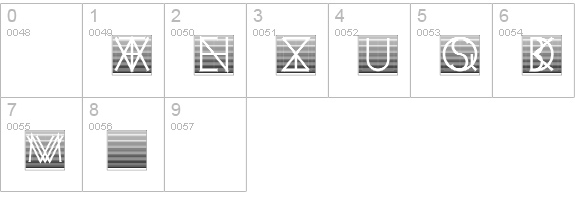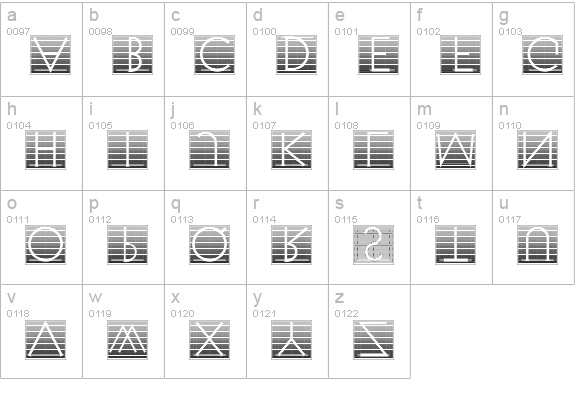
VenetianBlindInverse Font Details
VenetianBlindInverse is a captivating and versatile font that embodies the essence of timeless elegance. With its unique and intricate design, this font is perfect for adding a touch of sophistication to any project. Its charming and delicate curves create a visually stunning effect, making it a standout choice for logos, invitations, and branding materials. The VenetianBlindInverse font effortlessly combines classic charm with a modern twist, making it ideal for both traditional and contemporary design styles. Its flowing lines and refined details add a sense of grace and refinement, ensuring that your message is conveyed with utmost elegance. What sets VenetianBlindInverse apart from other fonts is its ability to captivate and engage the viewer. Its exquisite craftsmanship and attention to detail make it a true work of art. Each letter is meticulously crafted, resulting in a harmonious and visually pleasing composition. One of the best things about VenetianBlindInverse is that it is free for personal and commercial use. It is readily available to download at FontsMarket.com, ensuring that you can unleash your creativity without any limitations. Whether you're a designer, an artist, or simply someone looking to add a touch of sophistication to your projects, VenetianBlindInverse is the perfect font for you. Download VenetianBlindInverse today and experience the beauty and versatility of this stunning font. Let it elevate your designs to new heights and captivate your audience with its timeless elegance.